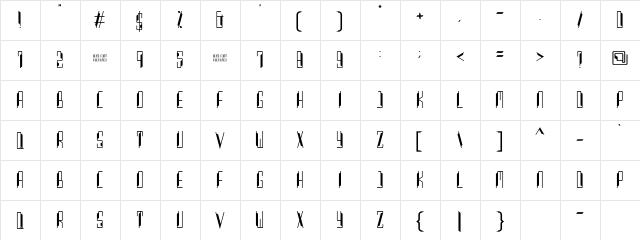
Hulalaby Demo Regular
Design Context for Hulalaby Demo Typeface
Hulalaby Demo is a composed and adaptable typeface that performs quietly and consistently across a wide range of design contexts.
Pro Tip: Use Hulalaby Demo in both headline and body roles to test its range before committing to a single application.